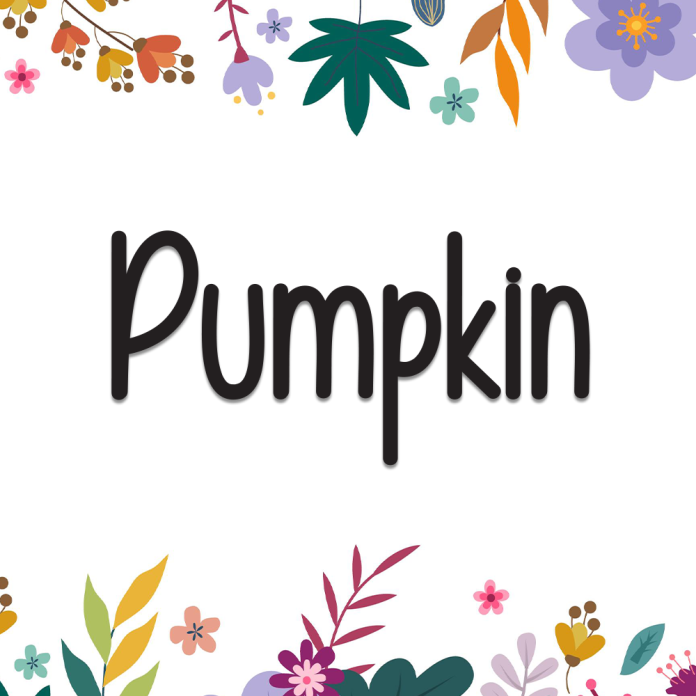
Pumpkin is a cheerful and quirky display font inspired by autumn festivities and Halloween spirit. With rounded edges and cartoon-like character, it’s perfect for kids’ themes, seasonal designs, party invitations, posters, or anything that needs a fun, light-hearted touch.
Playful and bold character shapes
Ideal for fall-themed graphics, Halloween, and school crafts
Child-friendly and easy to read
Add a dose of seasonal charm to your designs with the joyful personality of Pumpkin!